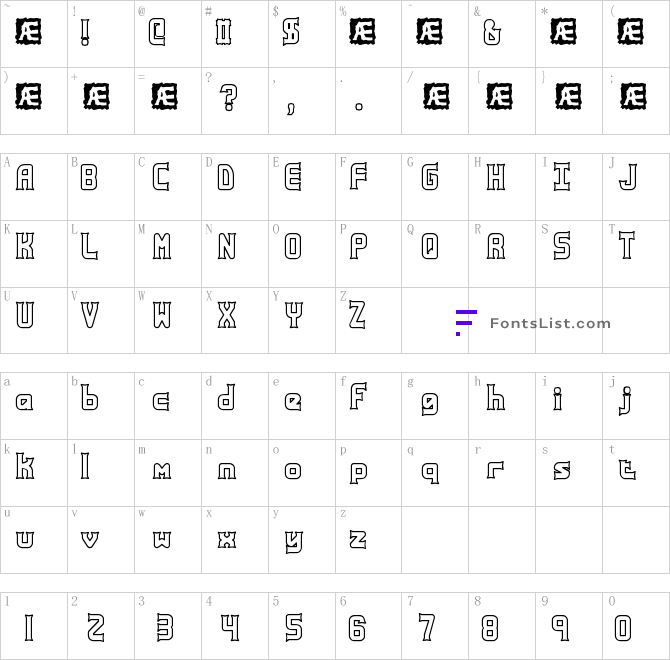
- Font Name:Ataxia Outline BRK
Ataxia-Outline-BRK-copy-1-.ttf is a very beautiful artistic font, Ataxia-Outline-BRK-copy-1-.ttf is widely used in the design and printing of various books and pictures,Ataxia-Outline-BRK-copy-1-.ttf has a strong visual impact,Ataxia-Outline-BRK-copy-1-.ttf is a commonly used font in newspapers, magazines and books, and is used in posters, e-commerce Poster design, store design, logo design, font design and other fields.Ataxia-Outline-BRK-copy-1-.